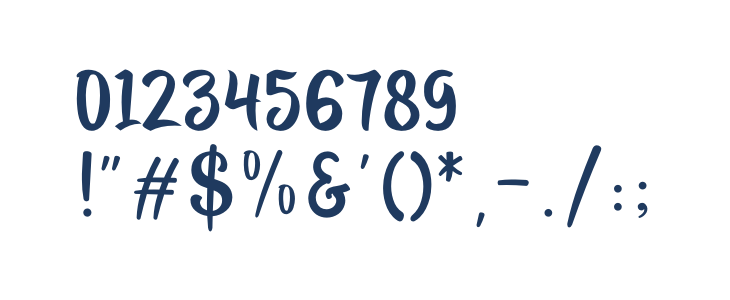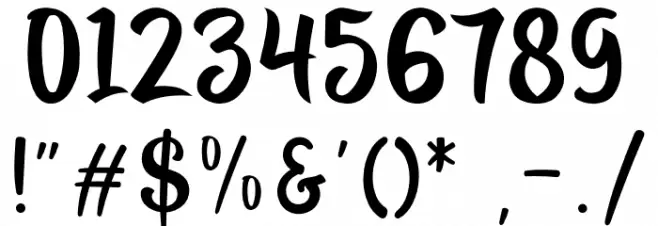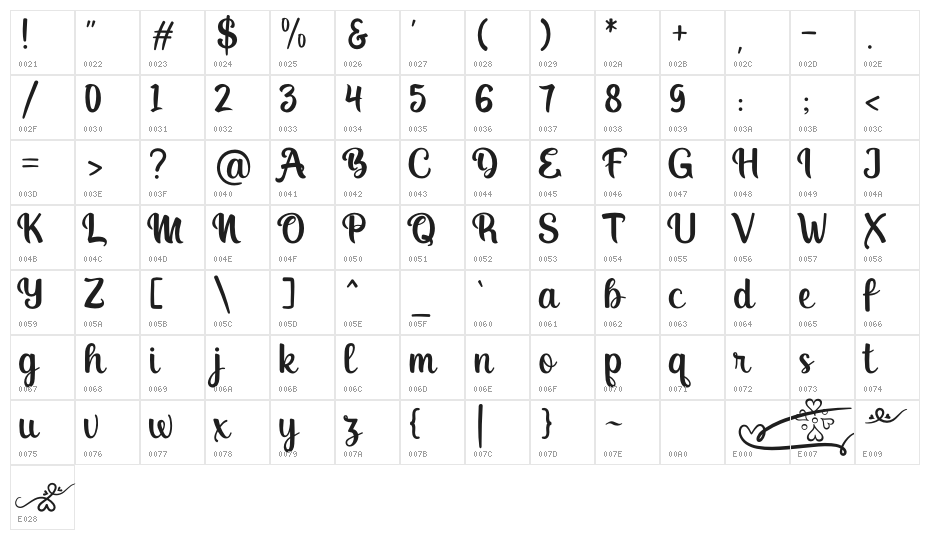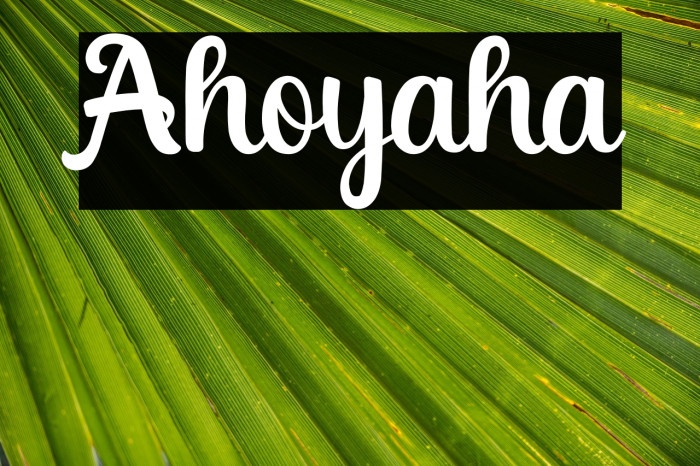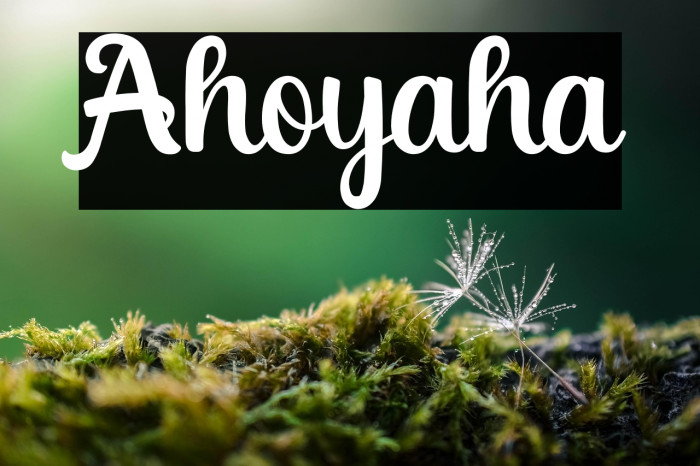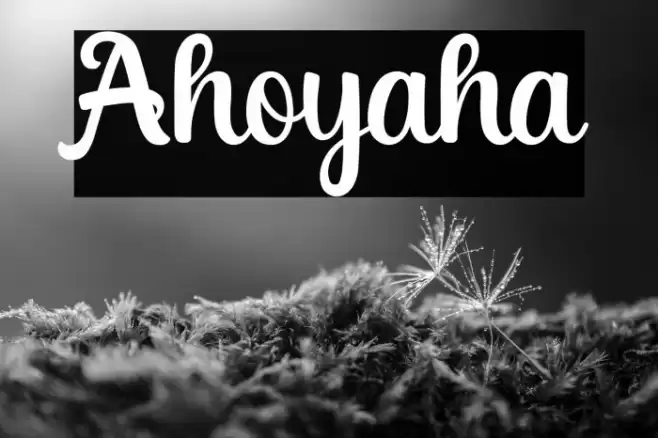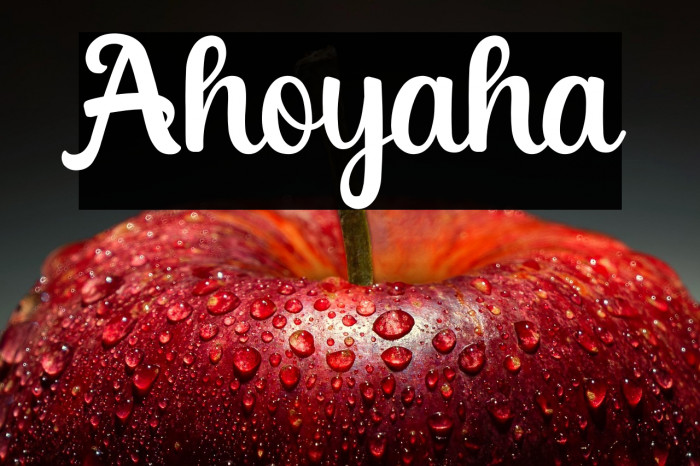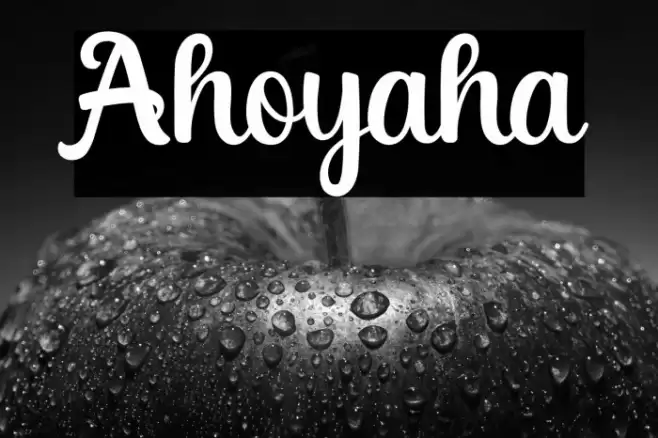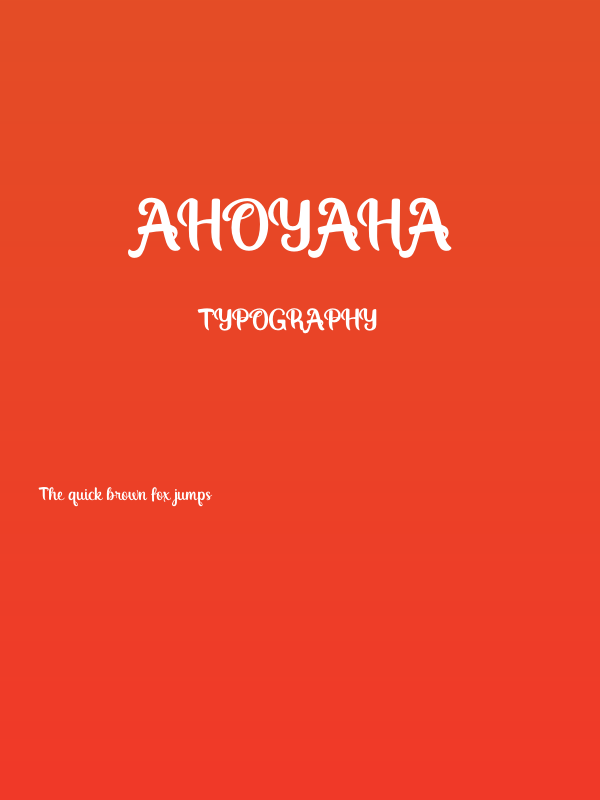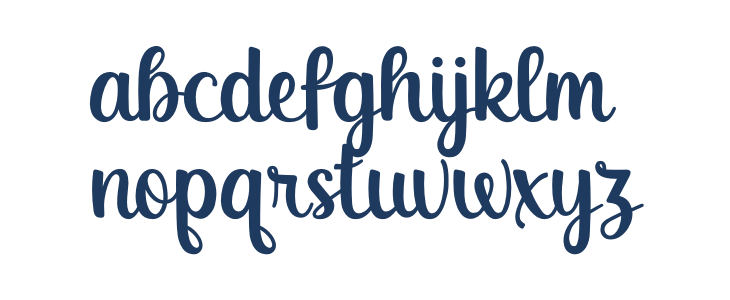
Ahoyaha Font
Ahoyaha Description
This font features a playful and bold script style, characterized by its flowing, cursive letterforms. The uppercase letters are slightly larger and more pronounced, while the lowercase letters maintain a consistent, rounded appearance. The numbers are equally bold, with a slight slant that complements the overall script style. Special characters are designed to match the playful aesthetic, making them suitable for creative projects. The font's thick strokes and smooth curves give it a friendly and approachable feel, perfect for designs that require a touch of whimsy.